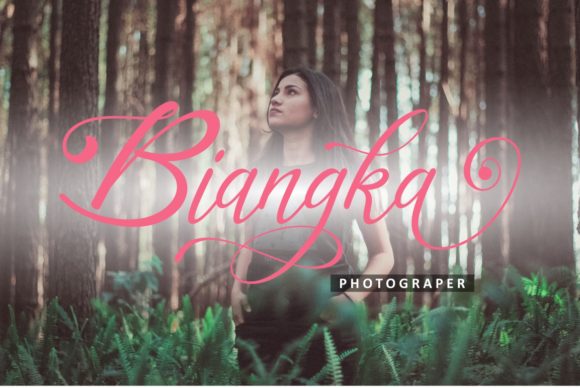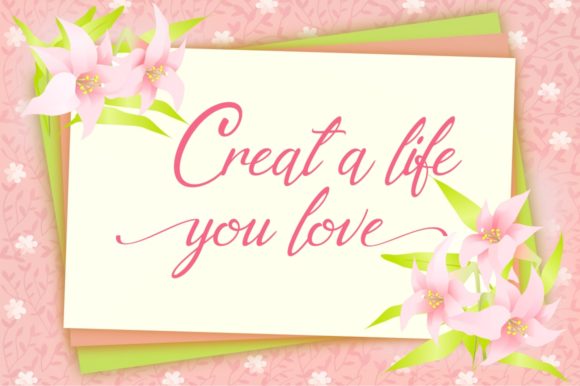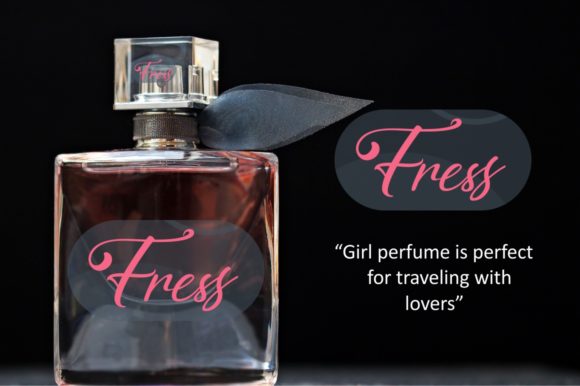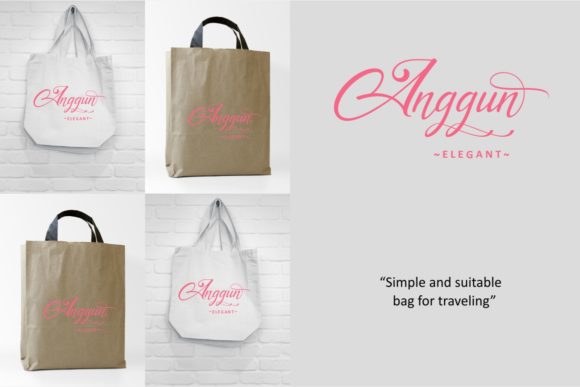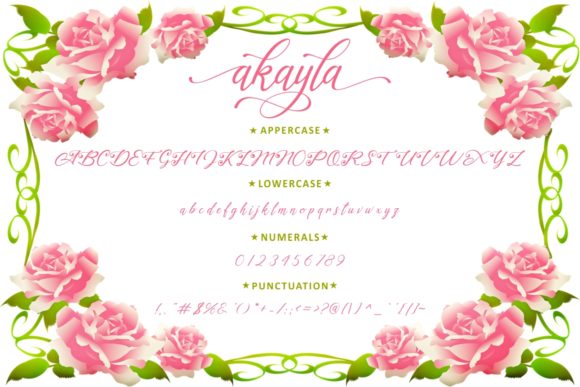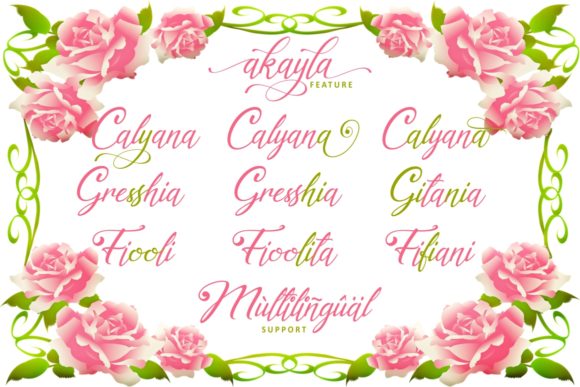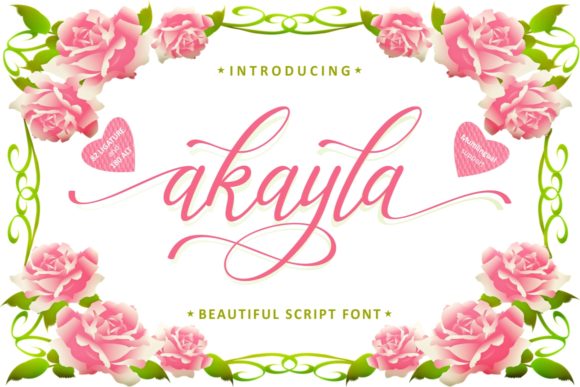
Introducing Akayla Font: The Perfect Script for Romantic Crafting Projects
Are you a designer or crafter looking for a font that can add a touch of elegance and romance to your projects? Look no further than Akayla Font. This beautiful script font is designed to bring a delicate and sophisticated feel to any crafting project, making it perfect for those who want to create something truly special.
What Makes Akayla Font So Special?
Akayla Font is an equally delicate and elegant script that features beautiful PUA-encoded swashes. These swashes add a touch of whimsy and romance to any project, making it perfect for crafters who want to create something that stands out. The font is designed to be versatile, making it suitable for a wide range of crafting projects, from wedding invitations and stationery to scrapbooking and DIY crafts.
Key Features of Akayla Font
- Delicate and Elegant Design: Akayla Font features a beautiful, cursive script design that is both delicate and elegant. The font is perfect for creating romantic and sophisticated crafting projects.
- PUA-Encoded Swashes: The font includes beautiful PUA-encoded swashes that add a touch of whimsy and romance to any project.
- Versatile: Akayla Font is suitable for a wide range of crafting projects, from wedding invitations and stationery to scrapbooking and DIY crafts.
Perfect for Romantic Crafting Projects
Akayla Font is the perfect choice for any crafting project that requires a romantic twist. Whether you’re creating wedding invitations, designing a scrapbook page, or making DIY crafts, this font is sure to add a touch of elegance and sophistication. The font is also perfect for designers who want to create beautiful and unique typography for their clients.
Examples of Projects That Akayla Font is Perfect For
- Wedding Invitations: Akayla Font is perfect for creating beautiful and elegant wedding invitations that set the tone for a romantic and sophisticated wedding.
- Scrapbooking: The font is great for scrapbooking projects, adding a touch of elegance and whimsy to your pages.
- DIY Crafts: Akayla Font is perfect for DIY crafts, such as making cards, gift tags, and other paper crafts.
- Stationery: The font is also great for designing beautiful and elegant stationery, such as letterheads and journals.
Tips for Using Akayla Font
Here are a few tips for using Akayla Font in your crafting projects:
- Experiment with Different Sizes: Akayla Font looks great in a variety of sizes, so don’t be afraid to experiment with different sizes to find the one that works best for your project.
- Pair with Other Fonts: The font pairs well with other fonts, so try pairing it with a bold font for a beautiful contrast.
- Use the Swashes: The PUA-encoded swashes are a beautiful feature of Akayla Font, so be sure to use them to add a touch of whimsy and romance to your project.
Akayla Font is a beautiful and elegant script font that is perfect for any crafting project that requires a romantic twist. With its delicate and sophisticated design, PUA-encoded swashes, and versatility, it’s the perfect choice for designers and crafters who want to create something truly special. Whether you’re creating wedding invitations, designing a scrapbook page, or making DIY crafts, Akayla Font is sure to add a touch of elegance and sophistication to your project.